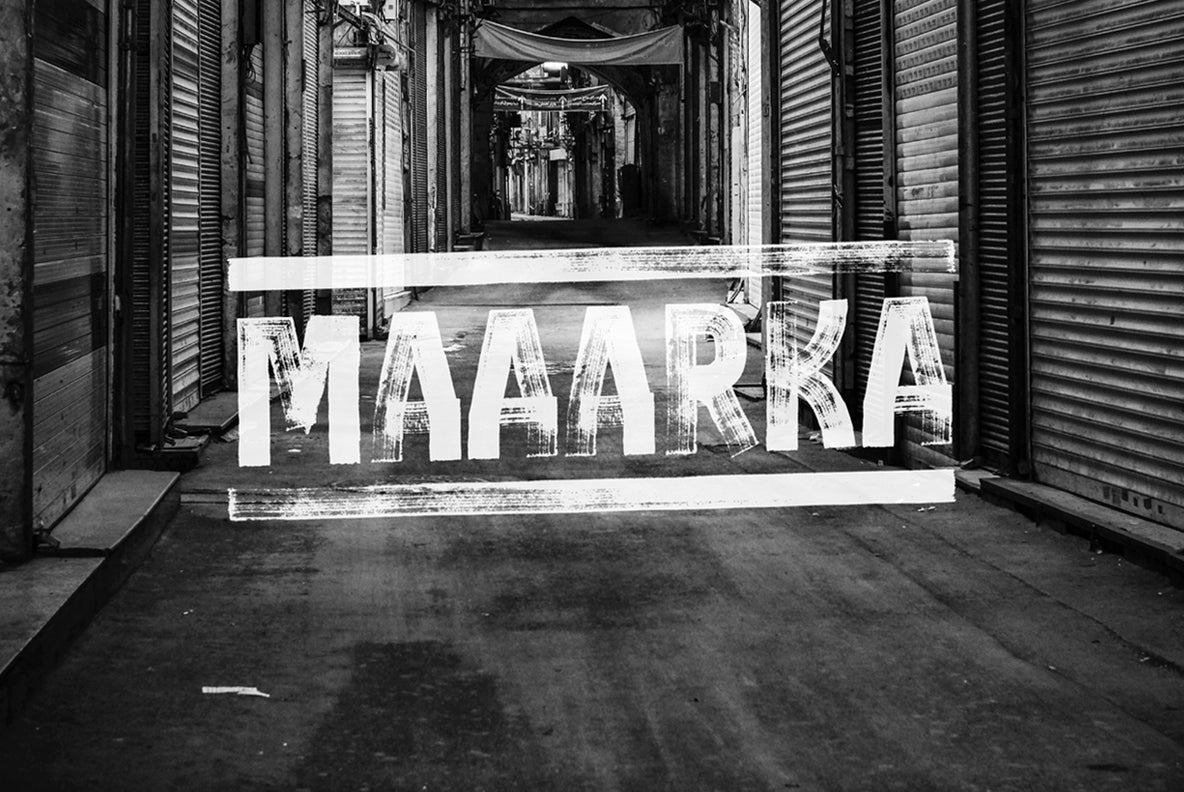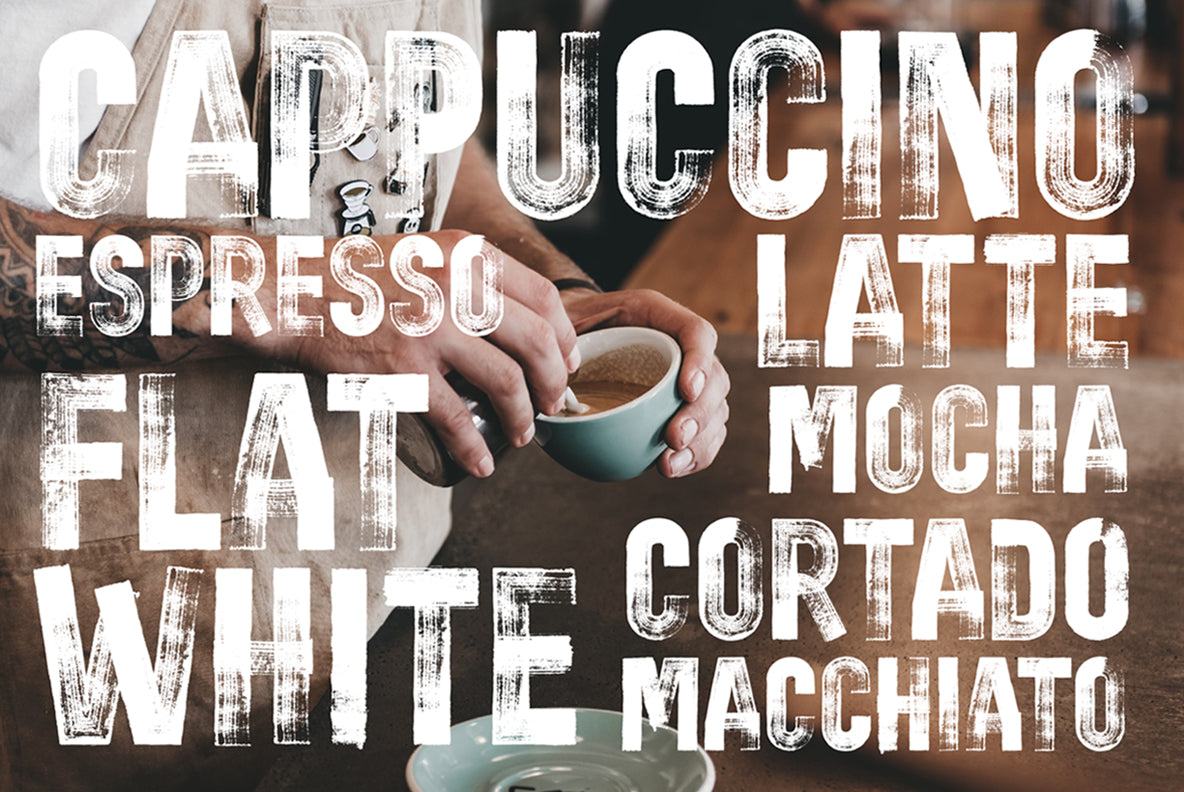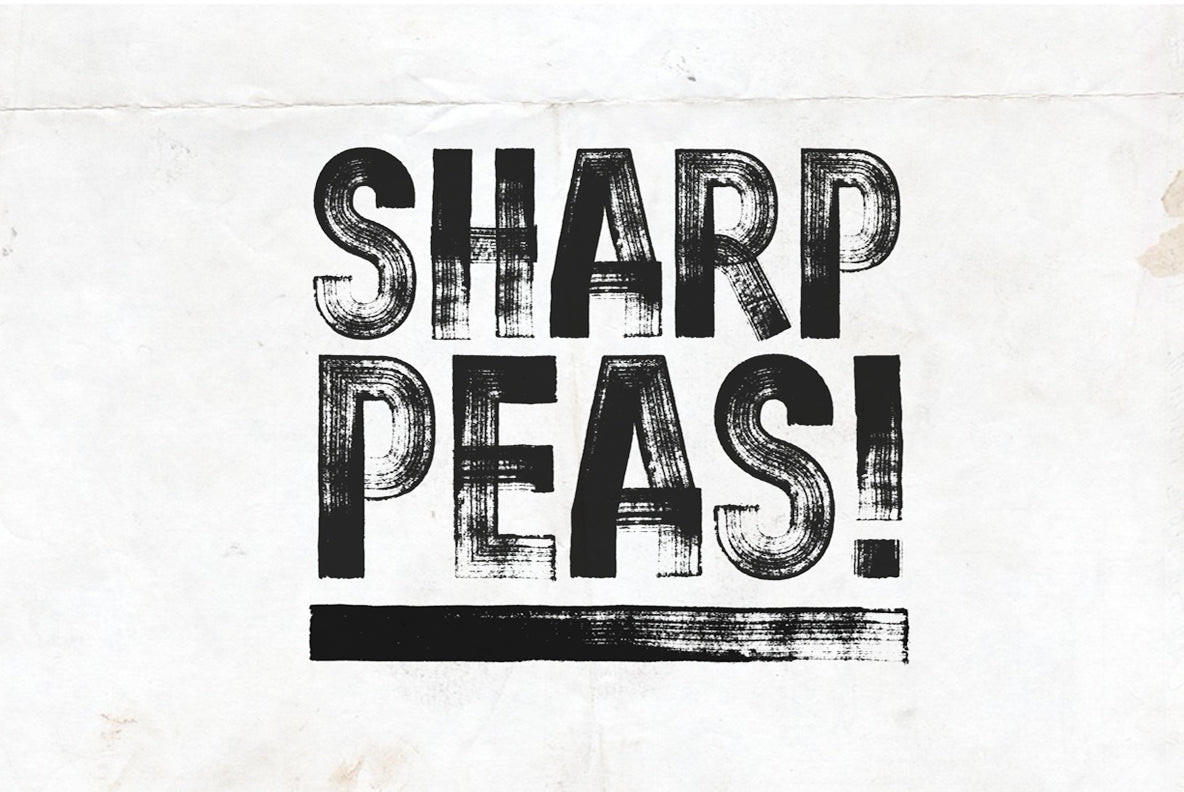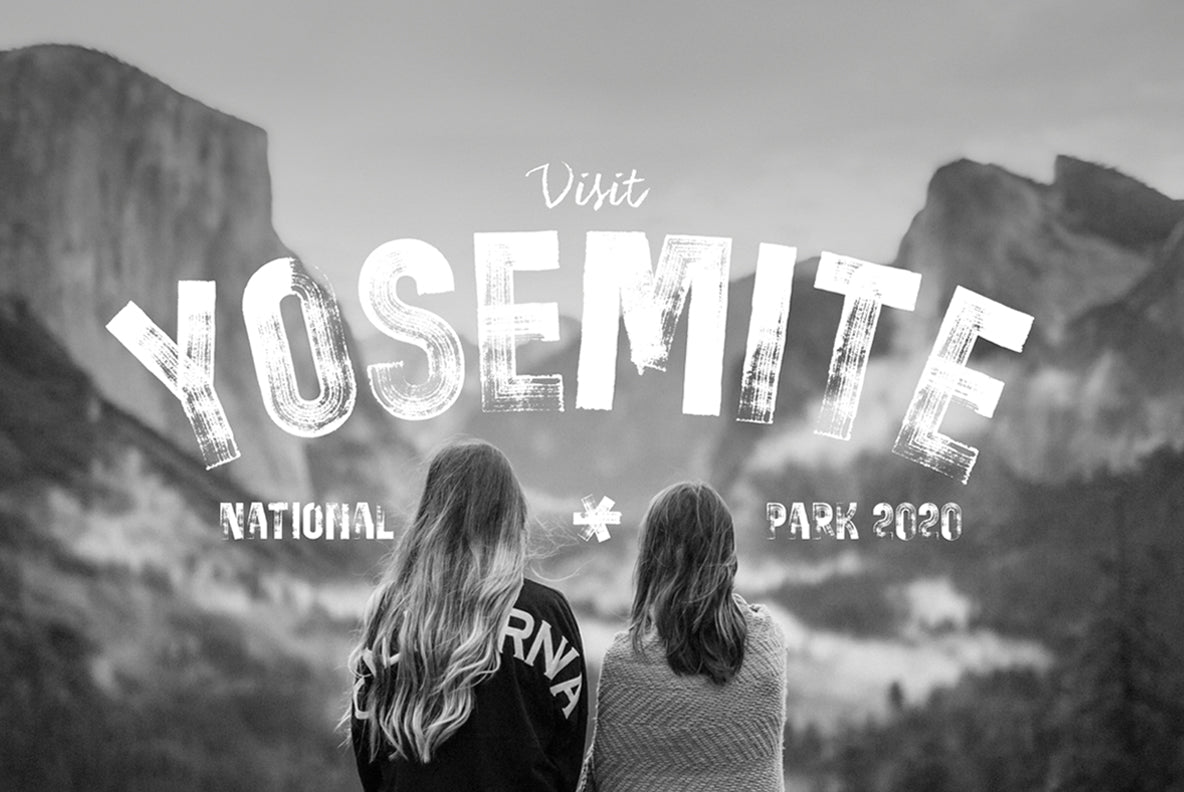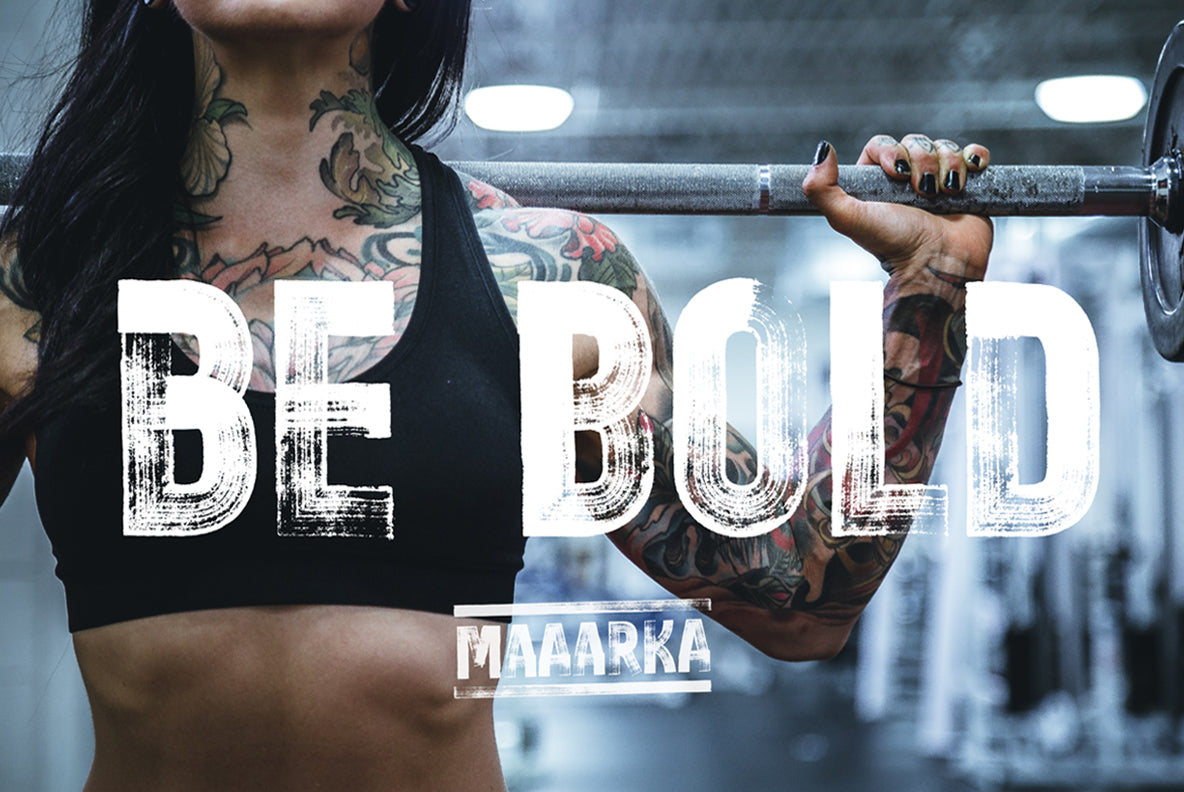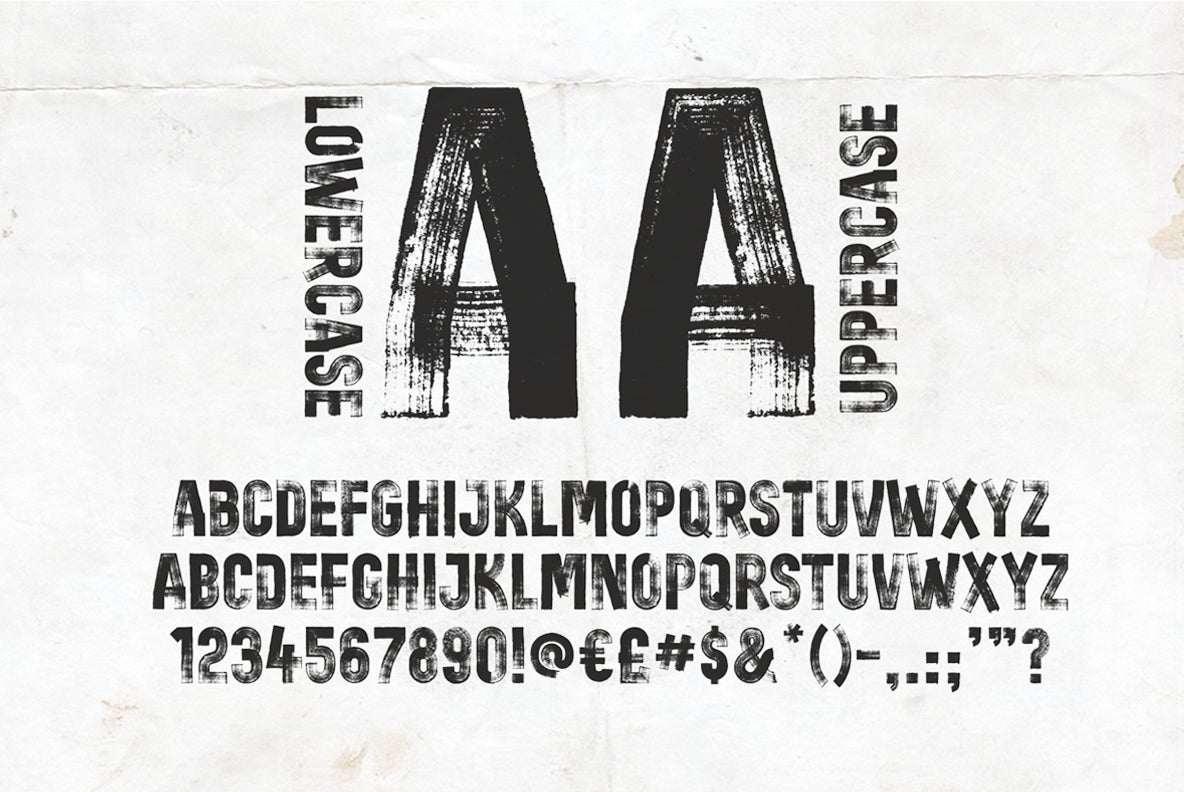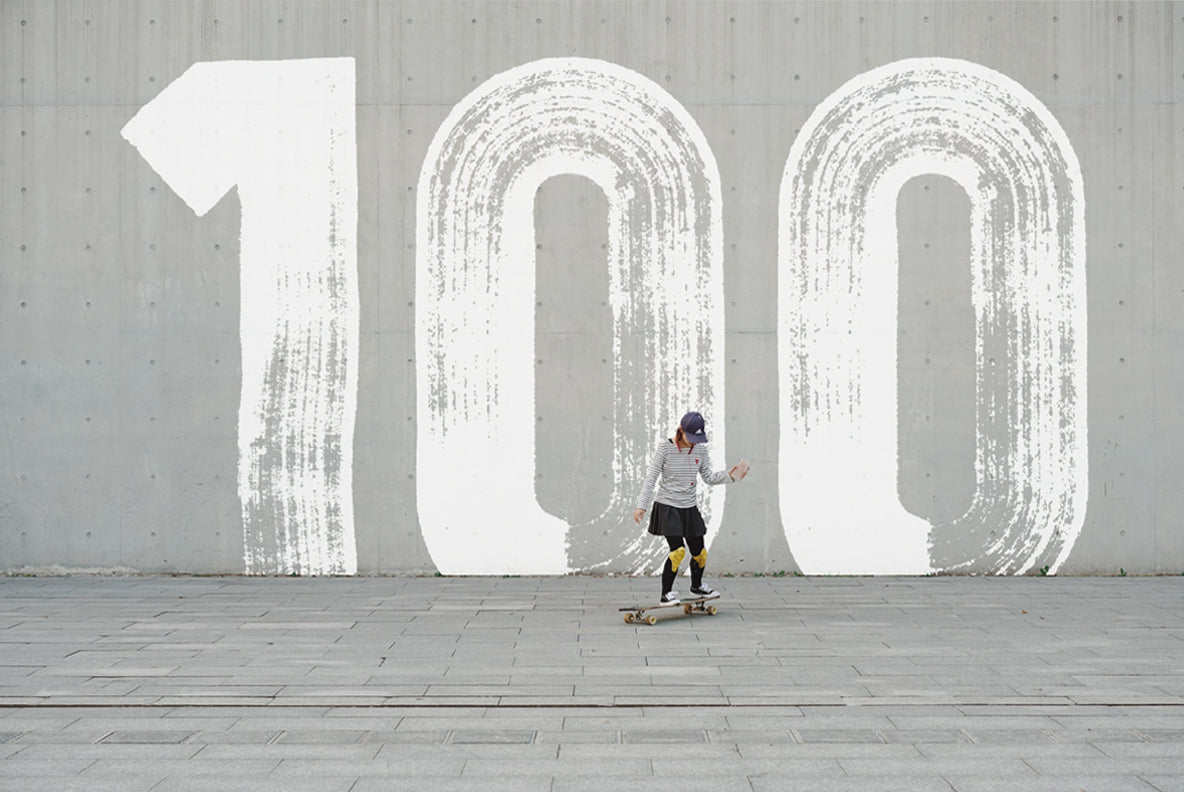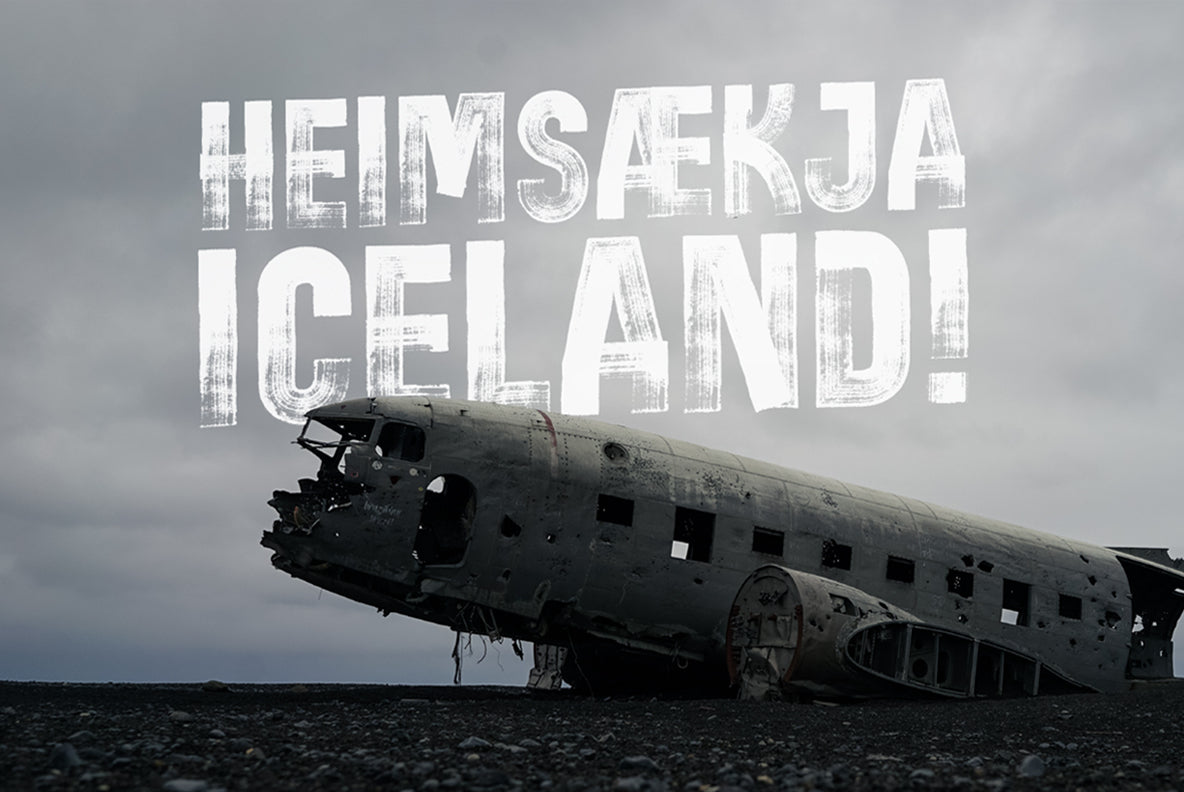
Maaarka from Drawwwn is a super bold, super cool, super dry, marker style font. It's super detailed, so it will still look good on your super massive projects. Make your maaark with some grafitti, protest posters or a fashion magazine spread... Maaarka's a super unique font that will always grab attention!